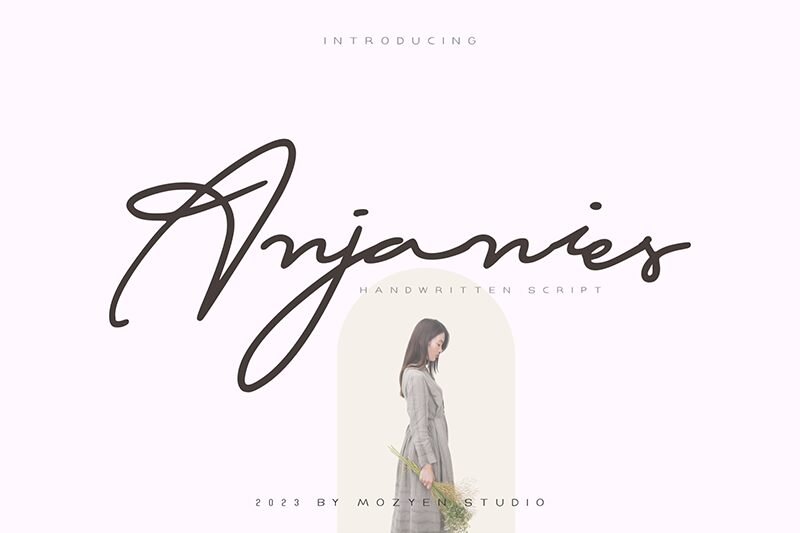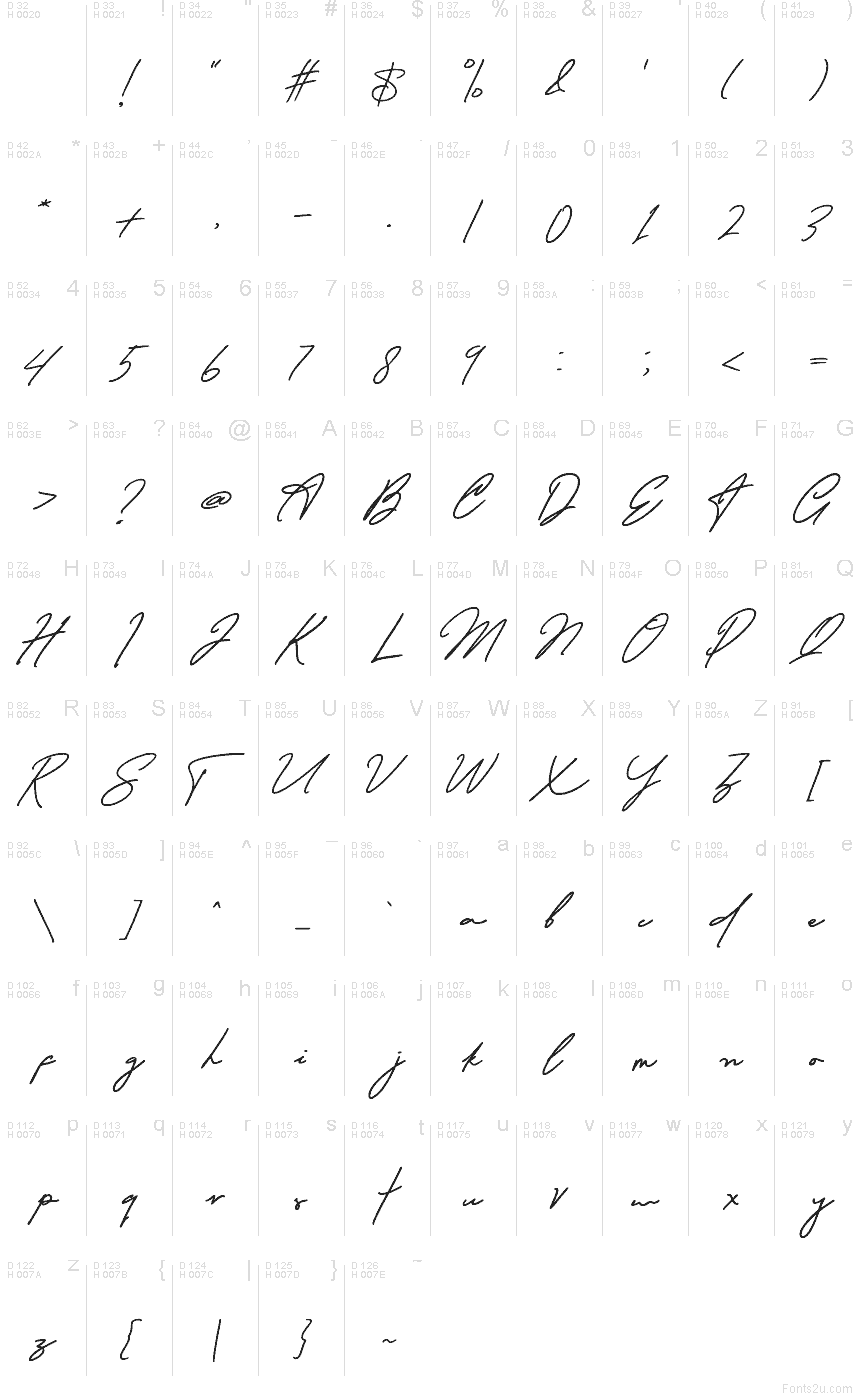
Anjanies, by Mozyen Studio, is a free signature-style handwritten font with a long, airy sweep and an easy fashion-note rhythm. The letters lean into quick, confident curves, with a dramatic opening stroke and loose connections that make the whole font feel personal rather than polished.
This free font fits naturally in boutique branding, beauty packaging, wedding stationery, social media headers, and cover lines where a name or short phrase should feel signed by hand. It also works well for title cards and monograms, because the extended loops and relaxed joins give short words a graceful, one-motion look.